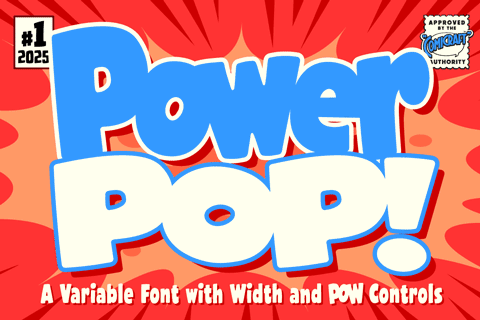
Power Pop
We’ve got some strong words for fighting crime: Bubbles! Blossom! Buttercup! POWERPOP is the toughest SFX character set for saving the world! But be warned — this font can form Onomatopoeia at high speeds and extreme temperatures! For YOUR protection, dedicated Comicraftsman John Roshell added soft, round corners — it’s like adding a little soda to your punch.
POWERPOP features automatic alternates for letters, numbers & punctuation AND variable control of Width & POW! Your favorite animation apps will burst with dynamic moving sound effects!
Six weights with upper & lowercase
Plus: Automatic alternates & Crossbar I Technology™and Variable font with Width & POW axes
Power Pop – Bouncy Pop-Art & Retro Display Font
Inject vibrant energy into your visual branding with Power Pop, a bouncy display font inspired by 1980s pop art, Saturday morning cartoons, and bright commercial packaging. Featuring playful, rounded letterforms with dynamic height variations, this eye-catching headline font is ideal for mobile game titles, youth apparel, and YouTube thumbnails. Power Pop includes upper and lowercase character sets, tabular figures, and comprehensive European language support. Get Power Pop today!